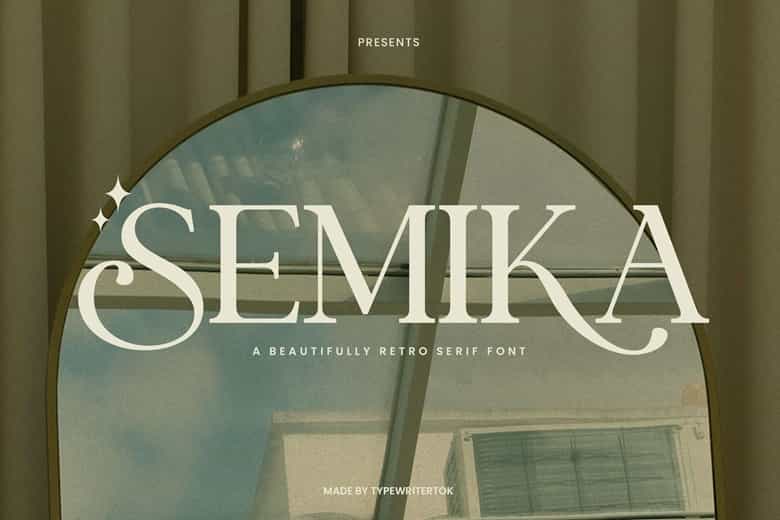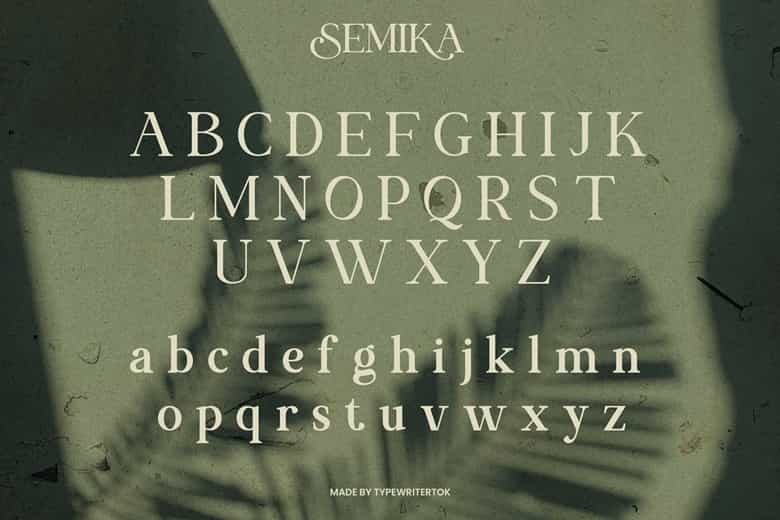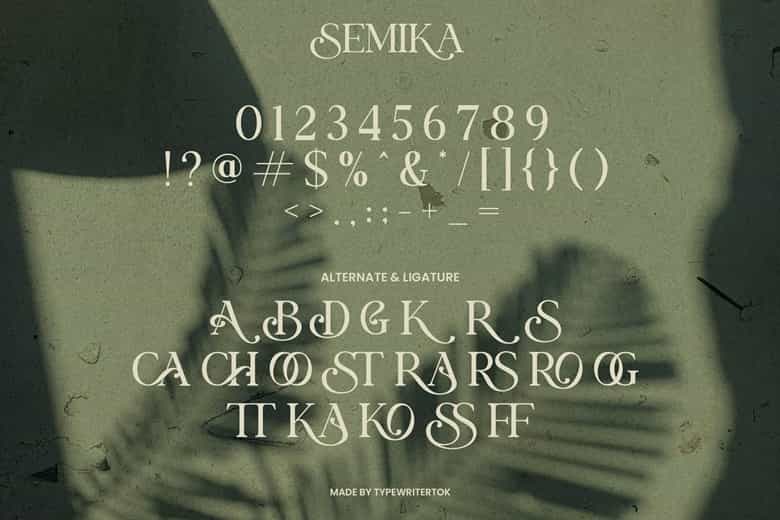
Imagine a retro serif font with a good deal of vintage soul and a touch of timeless style updated to the contemporary world. Soft curves, elegant serifs and also with a nostalgic nature, Semika is designed to stand out in the most graceful manner.